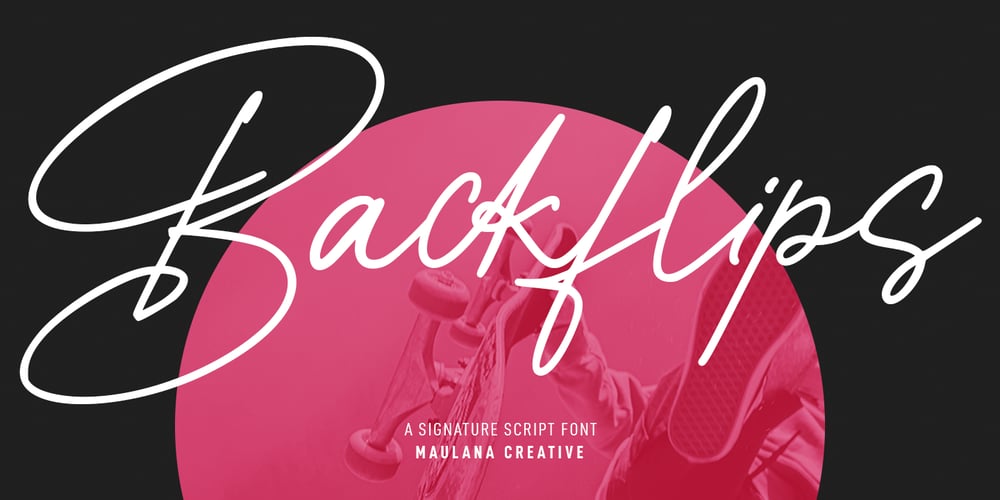
Backflips Font Family was designed by Gilang Maulana and published by Maulana Creative. Backflips contains 2 styles and family package options. Backflips is a fancy handwritten script font. With medium contrast stroke, fun character with a bit of ligatures and alternates. To give you an extra creative work. Backflips font support multilingual more than 100+ language. This font is good for logo design, Social media, Movie Titles, Books Titles, a short text even a long text letter and good for your secondary text font with sans or serif. Make a stunning work with Backflips font. Cheers, Maulana Creative